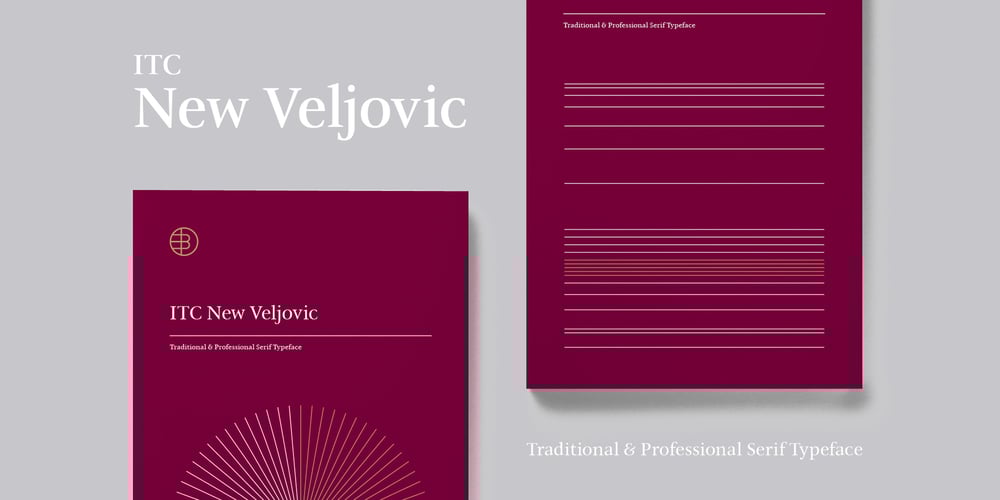
ITC New Veljovic Font Family was designed by Jovica Veljovic and published by ITC. ITC New Veljovic contains 30 styles and family package options. Thirty years after its first appearance, Jovica Veljović has produced ITC New Veljovic Pro, a completely revised edition of his first typeface, ITC Veljovic (1984). Prof. Veljović has tapped into all the experience he has garnered over the past decades; by carefully adjusting the proportions of the characters he has provided the new typeface with a more harmonious presence. The serifs have been subtly curtailed and the letters made slightly more condensed. Some new features of ITC New Veljovic are the double-story “g” with its completely closed loop and the more open forms of the “c” and “e”. In the italic variants, the latter is much rounder. Thanks to Veljović’s outstanding work, the optimized ITC New Veljovic can now be used in all contemporary applications. The new Condensed style saves considerable space when it comes to setting longer texts. The Display versions show off the striking, crystal-clear shapes of the design at their best in larger point sizes.